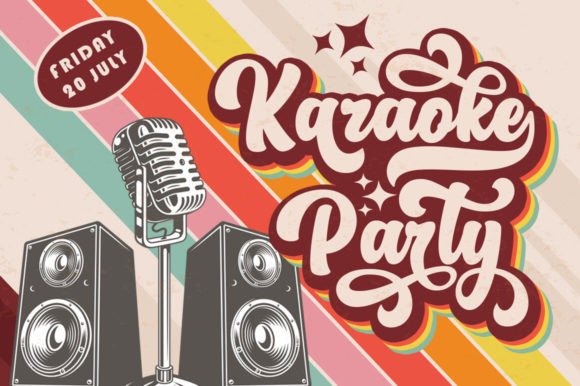
Barbie Cute Font
Immerse yourself in a world of retro charm with the Barbie Cute font, an evocative typeface that elegantly combines nostalgia with modernity. Ideally suited for vintage-inspired designs, it brings a timeless appeal to badges, logos, tees, posters, and branding materials. You can even use it to add an old-world touch to packaging, signages, book covers and more. Barbie Cute is more than just letters; every glyph and swash brims with character, each one easily accessible thanks to the font’s PUA encoding. So, whether you’re crafting an emblem or designing a merchandise, Barbie Cute adds that one-of-a-kind touch that truly sets your creation apart.